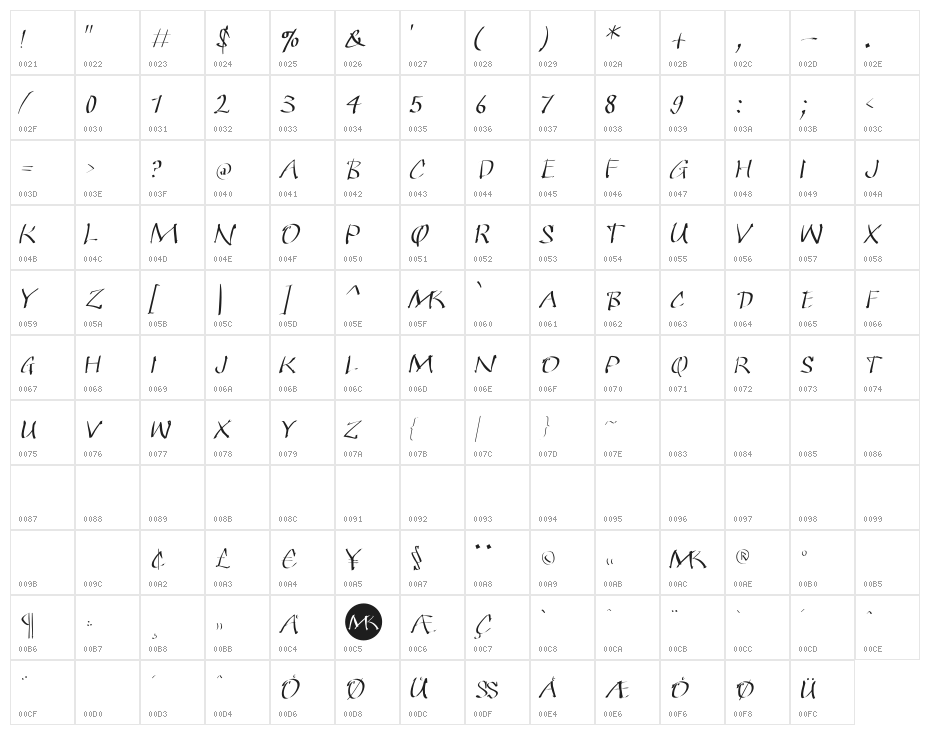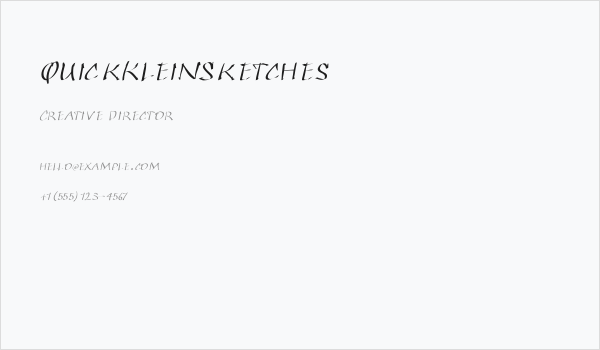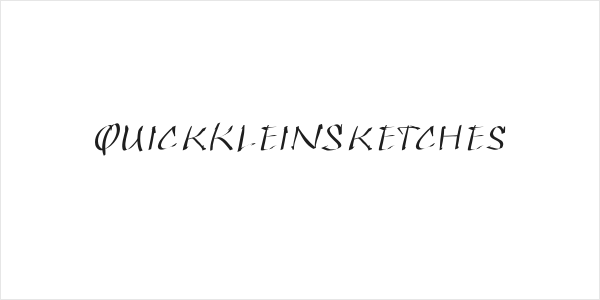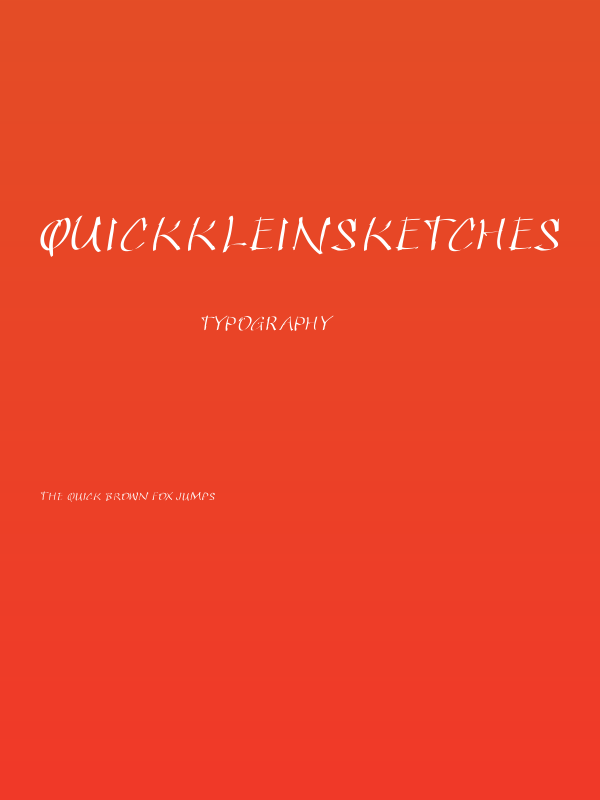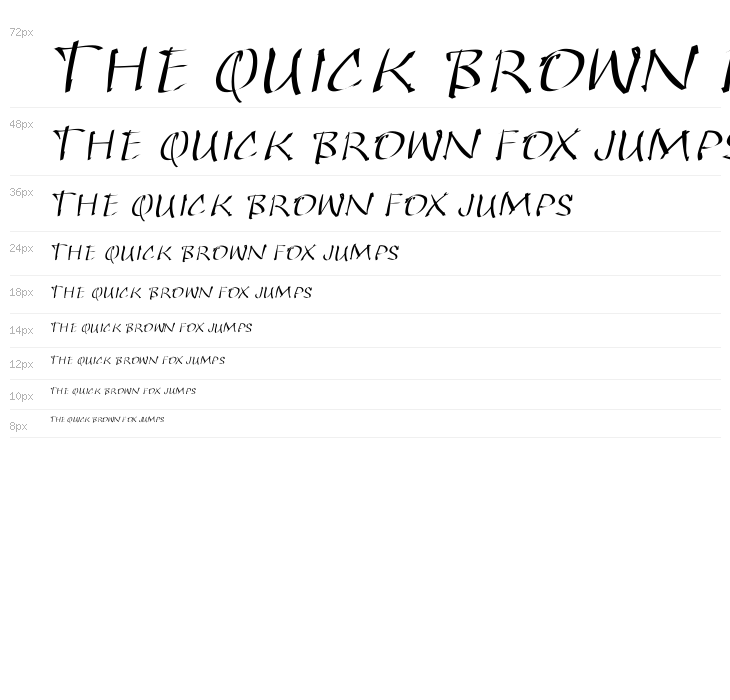
QuickKleinSketches Font
QuickKleinSketches Description
This font exhibits a dynamic and expressive style, characterized by its brush-like strokes and fluid motion. The letters have an artistic flair, with varying thickness that adds a sense of movement and energy. The uppercase and lowercase letters maintain a consistent style, with sharp angles and a slightly slanted orientation. The numerals and special characters follow the same aesthetic, ensuring a cohesive look across all elements. This font is ideal for projects that require a touch of creativity and spontaneity, such as artistic branding, invitations, or posters.